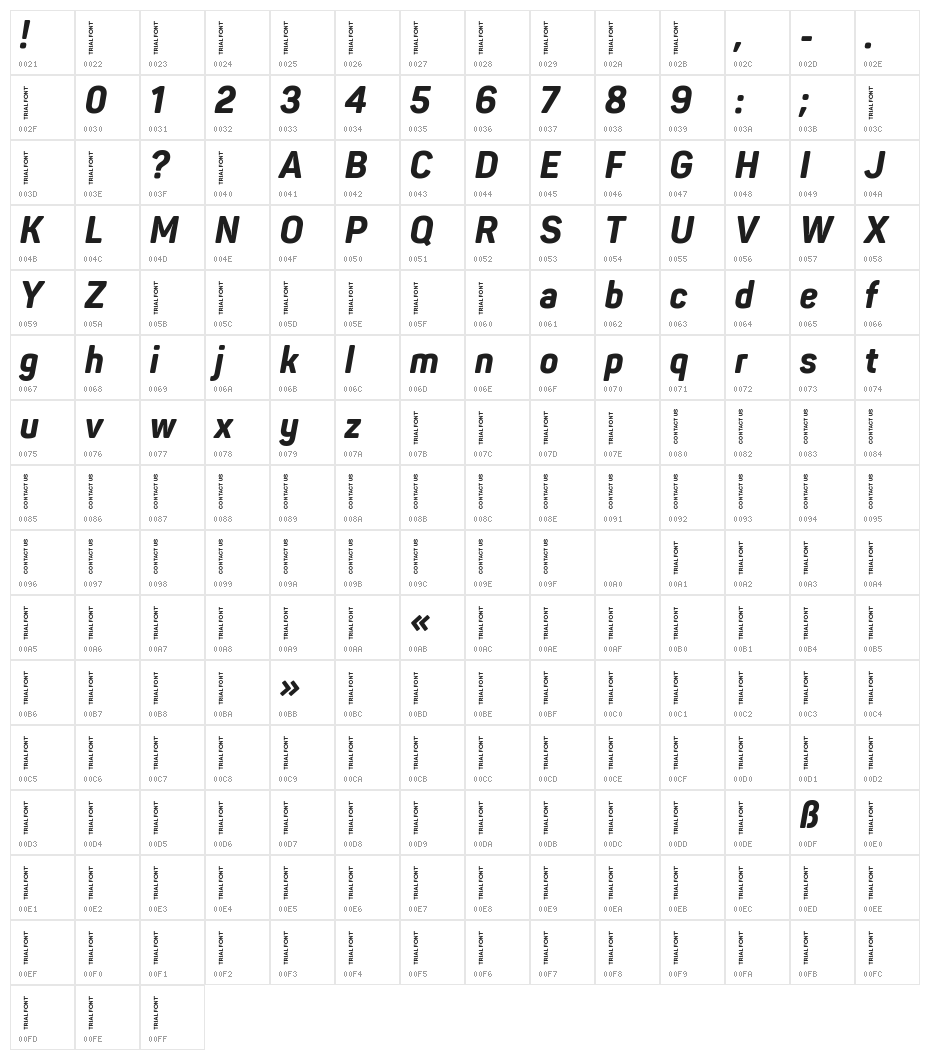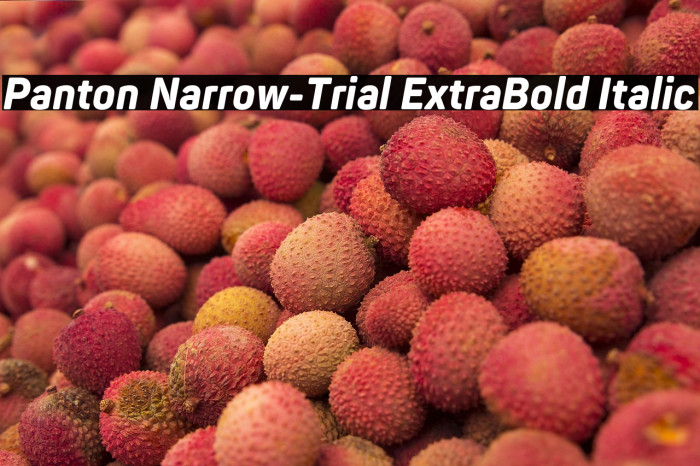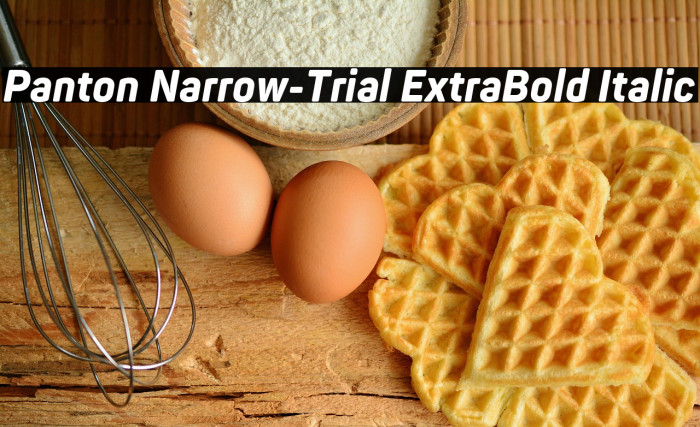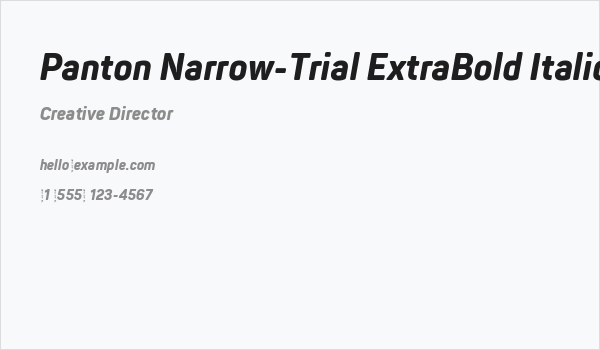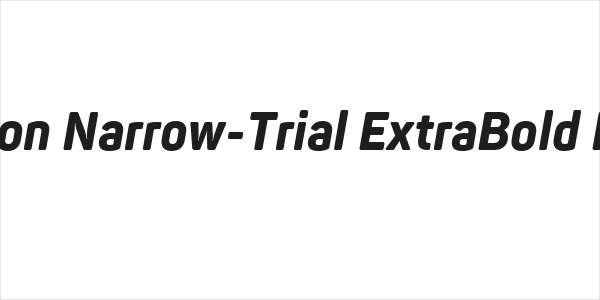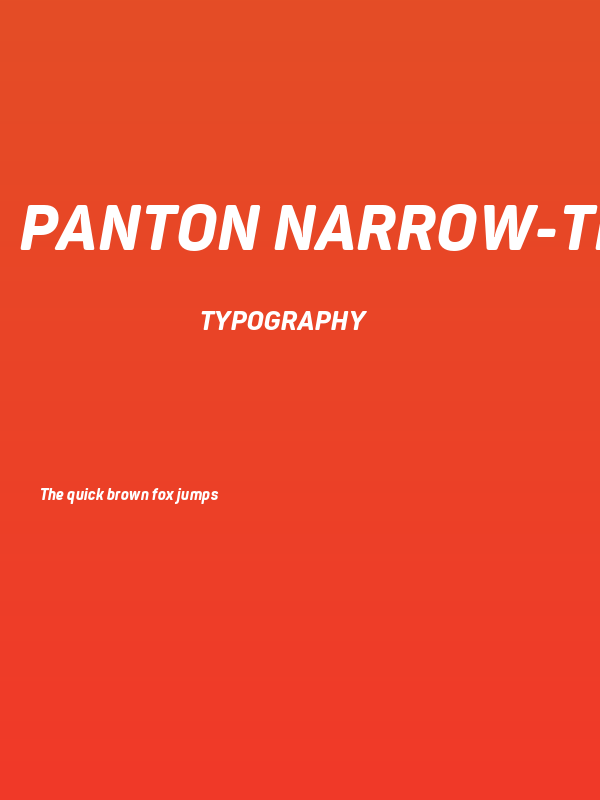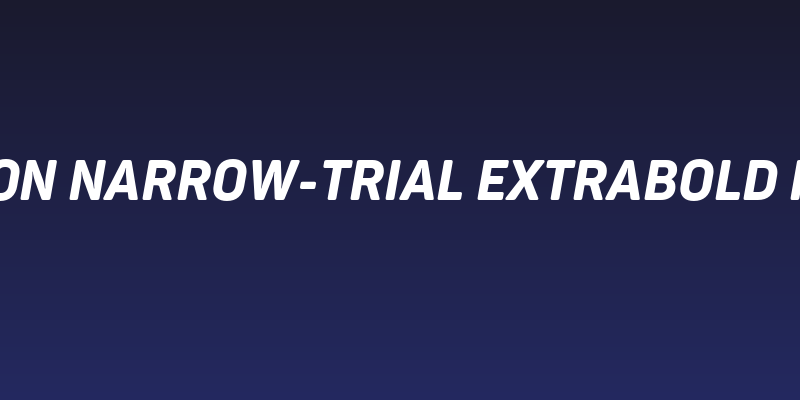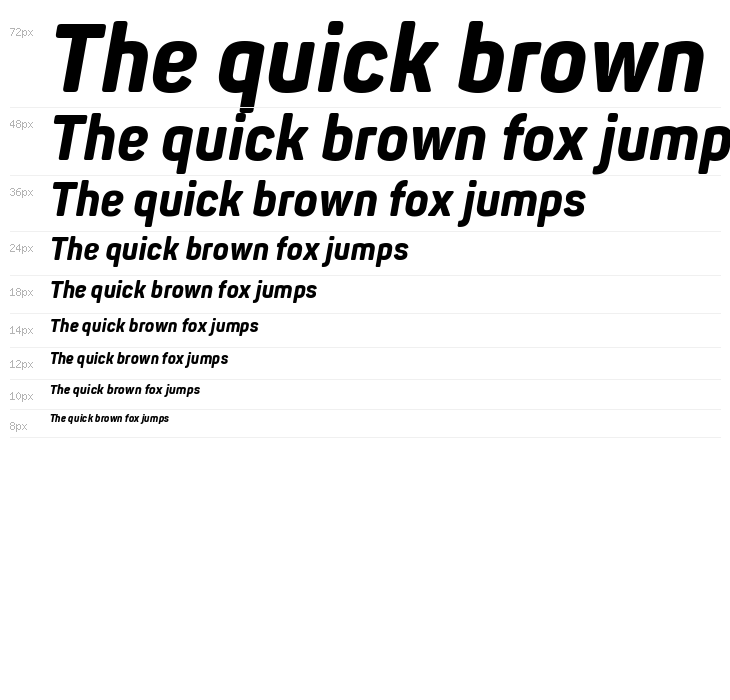
Panton Narrow-Trial ExtraBold Italic Font
Panton Narrow-Trial ExtraBold Italic Description
This font exhibits a modern and sleek design with a narrow and italicized structure, perfect for creating a dynamic and energetic feel. The extra bold weight adds a strong presence, making it ideal for attention-grabbing headlines and impactful statements. The characters are slightly condensed, enhancing the compact and efficient use of space. The smooth curves and clean lines contribute to its contemporary aesthetic, while the consistent stroke width ensures readability. This font is versatile and can be used in various design projects that require a bold and modern touch.